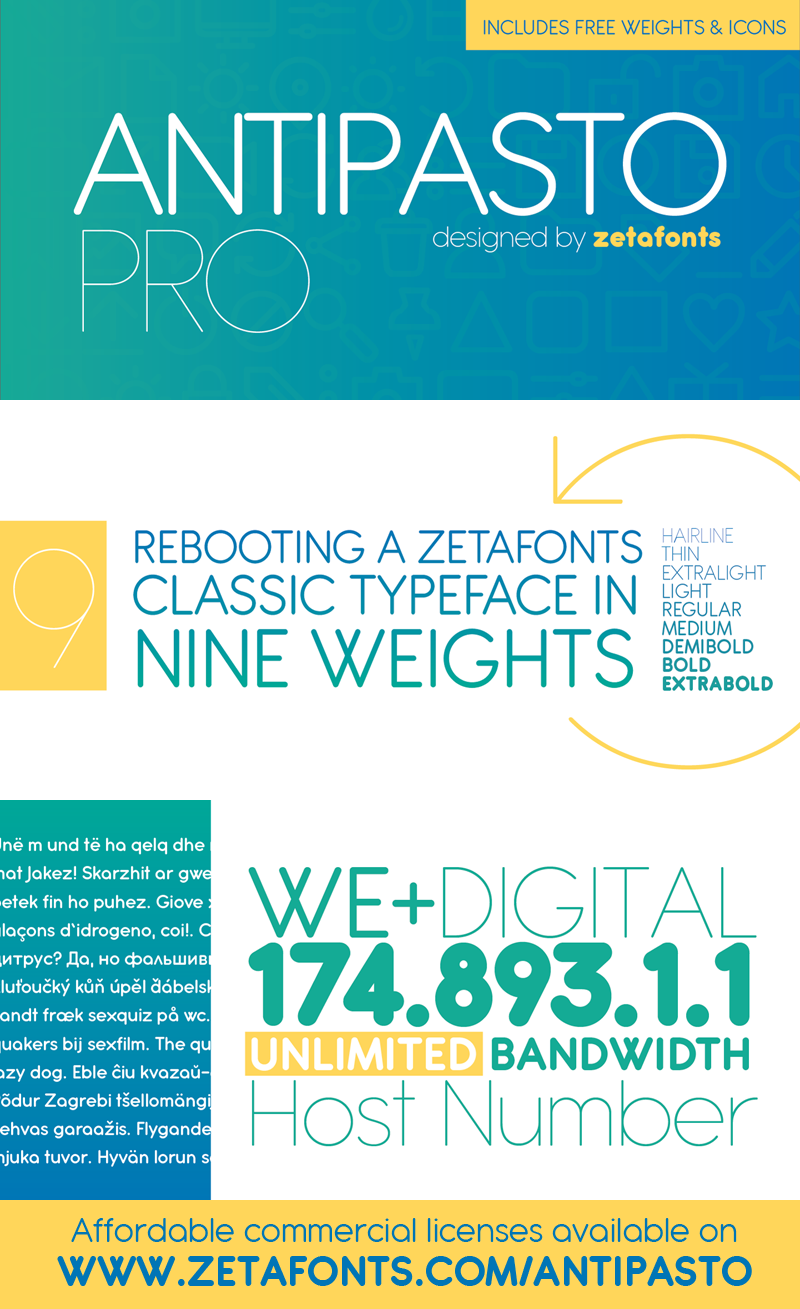
Antipasto
Searching for a versatile and highly customizable geometric sans-serif font? Look no further! Antipasto Pro is a comprehensive font family designed to meet the demands of modern design. Originally conceived as a three-weight system, it has been revised and expanded to include not only additional weights but also support for Cyrillic and Greek characters.
This font's geometric roots are evident in its clean lines and angular shapes, making it perfect for projects requiring a touch of modernity. But Antipasto Pro is more than just a stylish choice - it's also incredibly versatile. The addition of open-type features like small caps and old-style numerals adds a level of sophistication, while the range of weights (from hairline to extrabold) ensures that you can tailor your typography to suit any design style.
Whether you're working on a tech startup's website, a fashion brand's brochure, or a corporate report, Antipasto Pro has got you covered. And with its comprehensive icon set available in eight weights, you'll be able to add an extra layer of visual interest to your designs. With Antipasto Pro, the possibilities are endless!